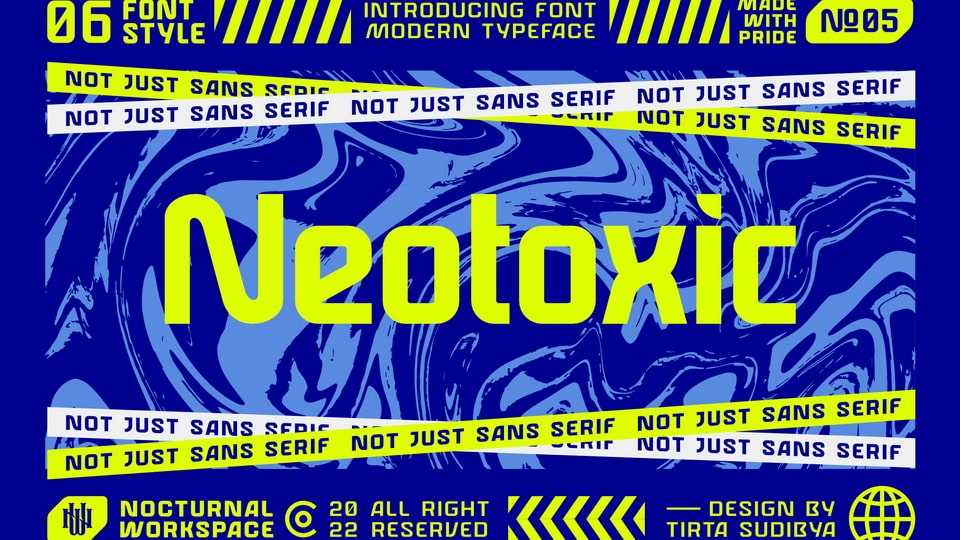
Download Neotoxic font, a bold and edgy typeface with a wild attitude. Neotoxic font lives up to the name with some very contemporary and new representations of letters, numbers and glyphs.
Designer: Nocturnal Workspace